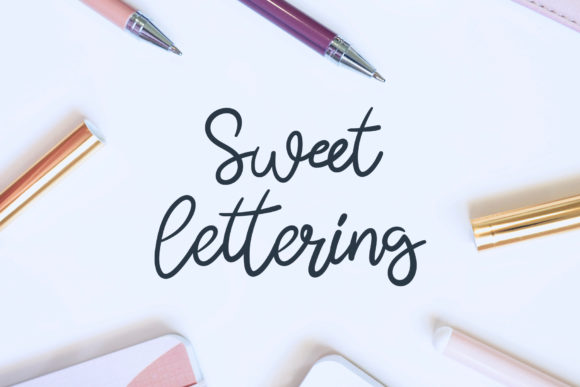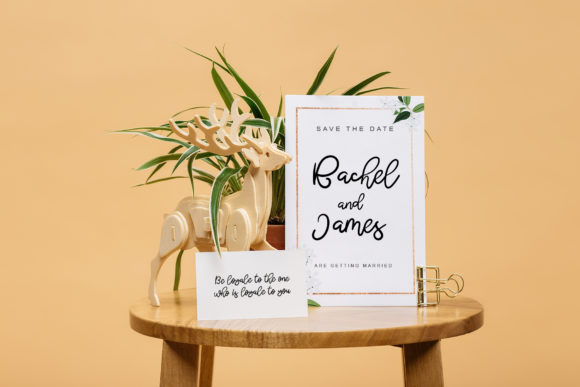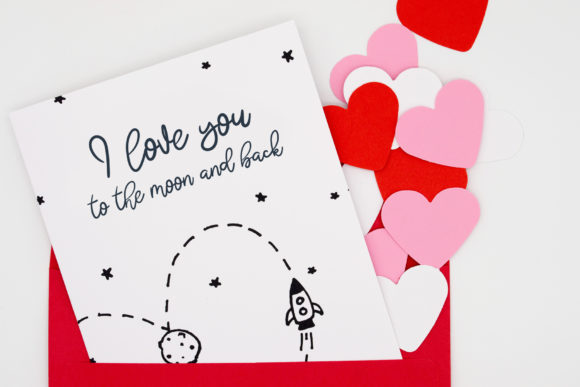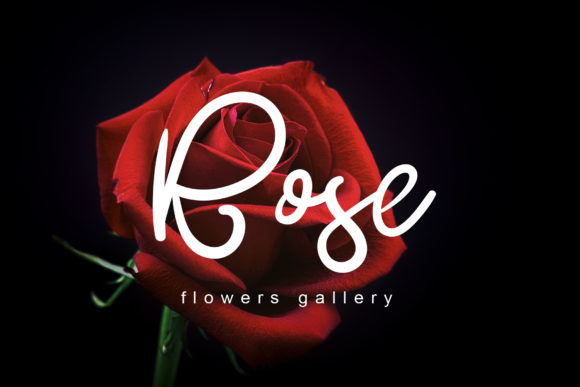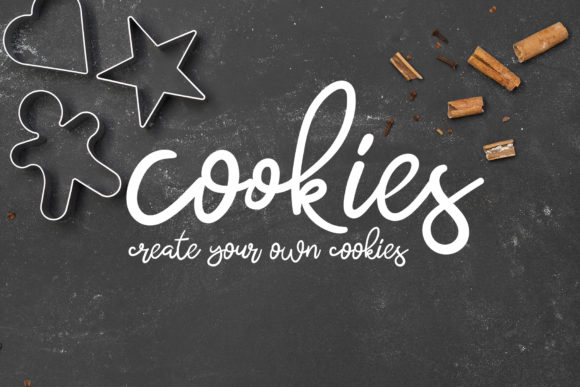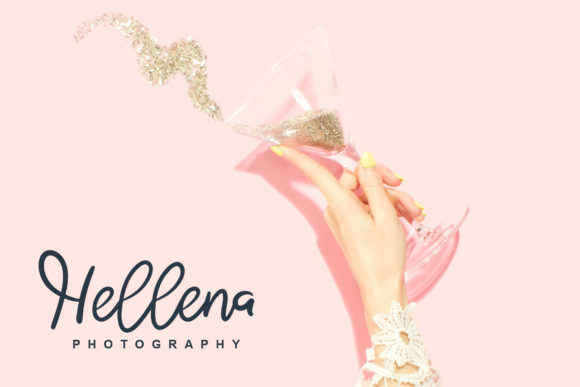
The Art of Elegant Typography
Have you ever found yourself lost in a sea of ideas, searching for the perfect font to bring your creative vision to life? I know I have. There’s something special about discovering a typeface that perfectly captures the essence of your project, and that’s exactly what happens when you come across the Butterfly Script Font.
This lovely handwritten script font boasts a clear and sweet style that makes it a standout choice for any creative project. Whether you’re designing a wedding invitation, a children’s book, or a branding campaign, the Butterfly Script Font is sure to add an elegant touch that sets your work apart from the rest.
As a designer, you know the importance of choosing a font that not only reflects your brand’s personality but also resonates with your target audience. The Butterfly Script Font is a valuable addition to any designer’s toolkit, offering a unique and versatile solution for creating beautiful, eye-catching designs that leave a lasting impression.
Key Features of Butterfly Script Font
- Font Family: Butterfly Script
- Unique Characteristics: Whimsical, elegant, and cursive script font with a touch of sophistication, making it ideal for creative and artistic projects
- Font Style: Comes in a single font style with multiple weights and ligatures for added versatility
Designer Review: Butterfly Script Font
I recently had the chance to work with the Butterfly Script Font, and I must say it’s a unique addition to any design project. ✨ The first thing that caught my attention was its elegant, cursive style, reminiscent of handwritten letters. It adds a touch of sophistication and whimsy to any text, making it perfect for wedding invitations, greeting cards, or even brand logos.
The font is highly customizable, allowing designers to adjust the line width, spacing, and other parameters to suit their needs. This flexibility makes it an excellent choice for projects that require a high level of personalization. ✨ Additionally, the font is highly legible, even at small font sizes, making it suitable for a wide range of applications.
- ⚠️ Limited font sizes: While the font is legible at small sizes, it may not be suitable for extremely large font sizes, as it can become overwhelming.
Overall, I’m impressed with the Butterfly Script Font. Its unique style and high level of customization make it a valuable addition to any designer’s toolkit. While it may have some limitations, the benefits far outweigh the drawbacks. I would highly recommend this font to designers looking for a stylish and versatile option for their next project.
Tips for Getting the Most Out of Butterfly Script
For the best results, use the Butterfly Script font in conjunction with elegant graphics and minimalist design elements.
Experiment with different font sizes and styles to create visual interest and hierarchy in your design.
Consider pairing the Butterfly Script font with other elegant or cursive fonts to create a cohesive and sophisticated look.
Yes, you can customize the Butterfly Script Font to fit your design needs. The font includes various features such as ligatures, swashes, and alternate characters, which can be accessed using OpenType features in your design software.